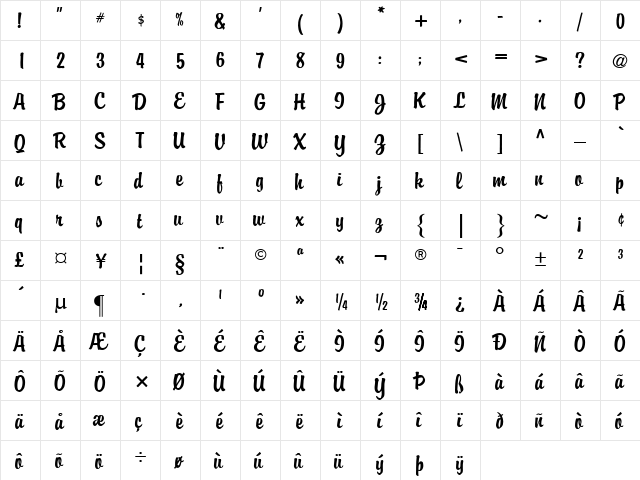
ATBrophyScript Medium
Design Context for ATBrophyScript Typeface
ATBrophyScript flows with the natural rhythm of handwritten lettering, making it ideal for designs that call for warmth and personal expression.
Font Pairing: Combine ATBrophyScript with a simple geometric sans for maximum contrast — the tension between flowing curves and clean structure is a classic typographic pairing.
Pro Tip: Pair ATBrophyScript with a clean sans-serif for supporting text. The contrast between fluid script and geometric structure creates an elegant typographic hierarchy.